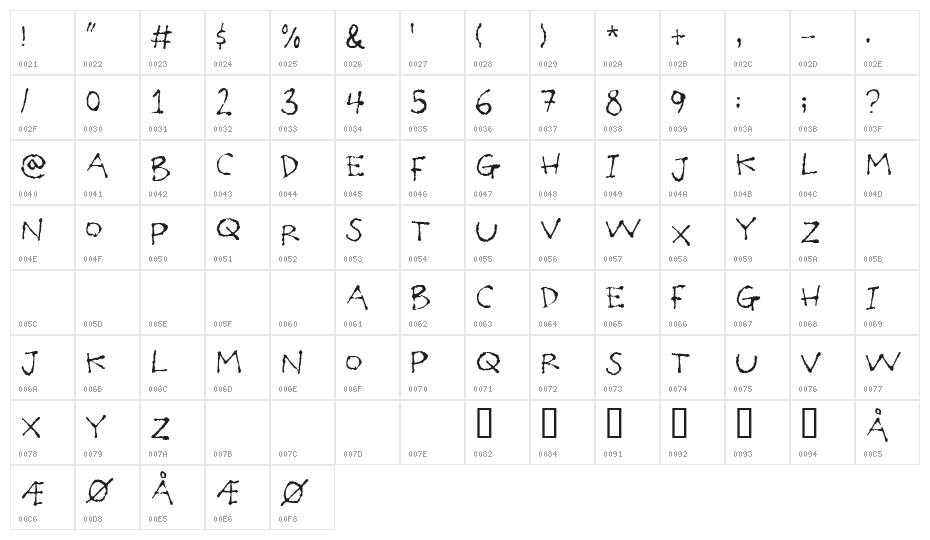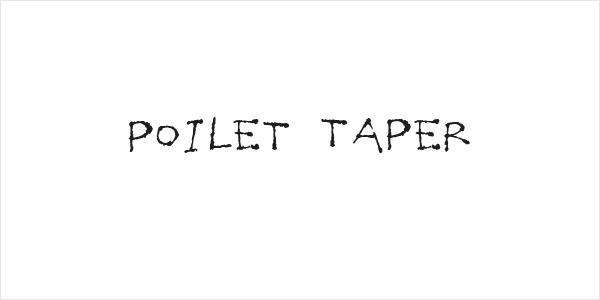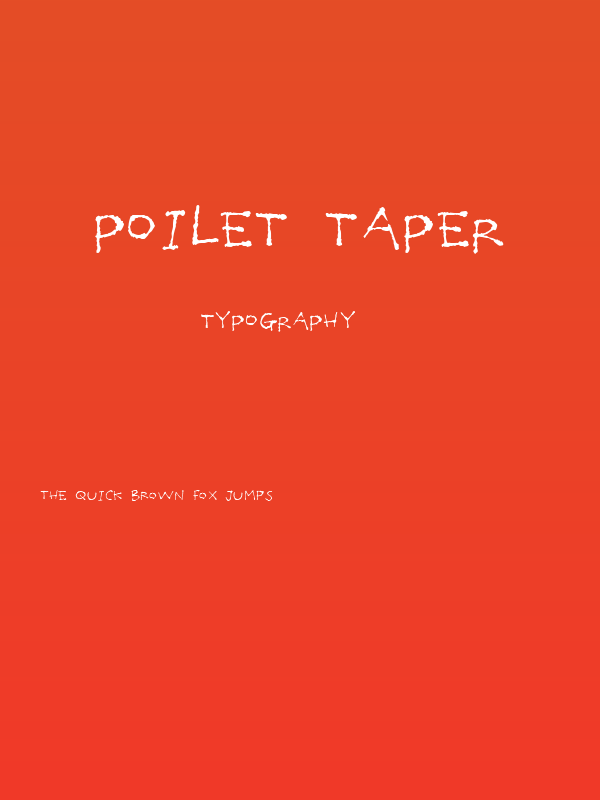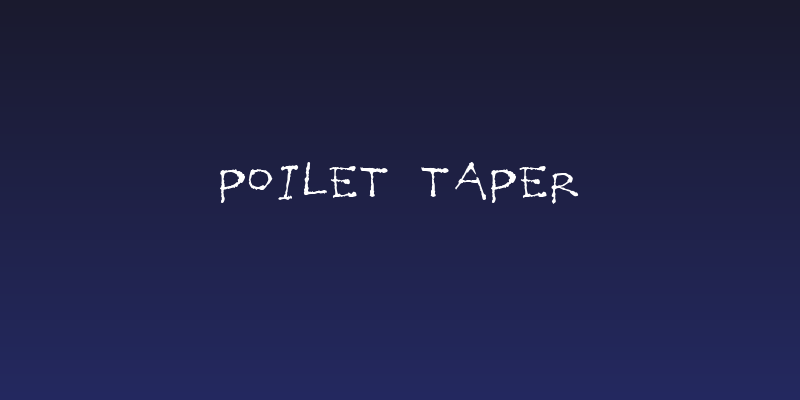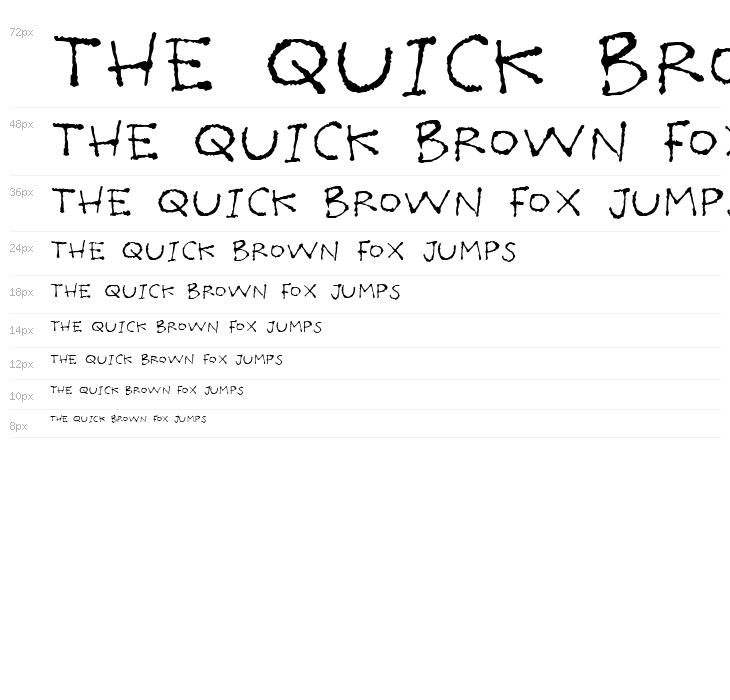
Poilet Taper Font
Poilet Taper Description
This font exudes a playful and informal style, characterized by its uneven, hand-drawn appearance. The letters have a rough, textured look, giving them a dynamic and energetic feel. The strokes are irregular, with varying thickness that adds to the casual and spontaneous vibe. The characters are slightly tilted and have a whimsical quality, making them stand out in a unique way. This font captures a sense of creativity and individuality, perfect for projects that require a personal touch. The numbers and special characters maintain the same lively and quirky style, ensuring consistency across all elements.
| Proposed Projects | Ideal for children's books, creative posters, casual invitations, and artistic branding. |